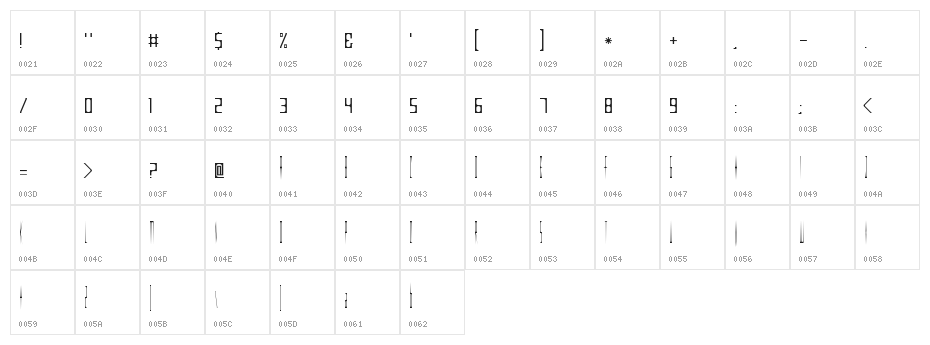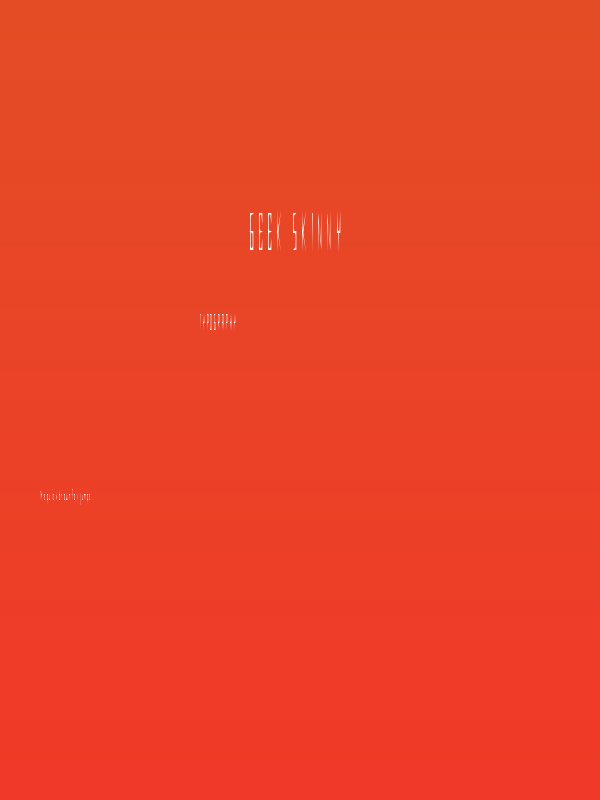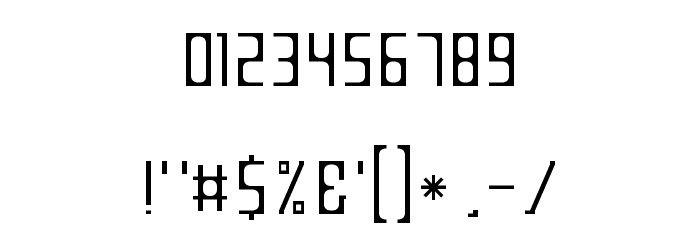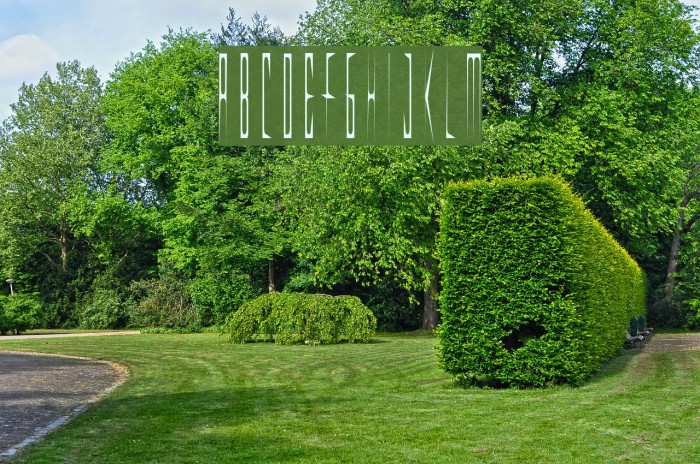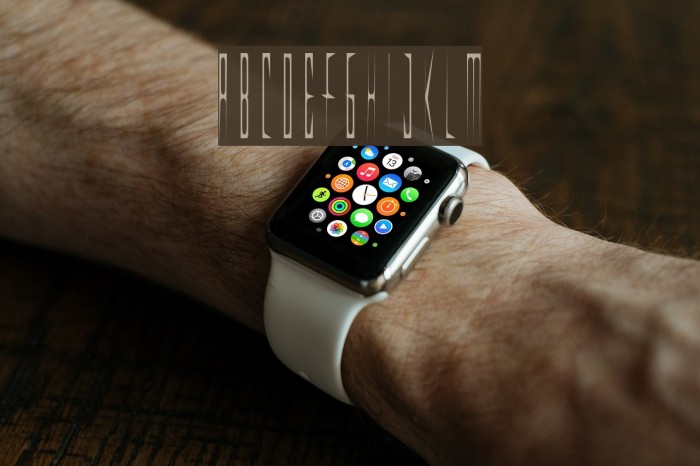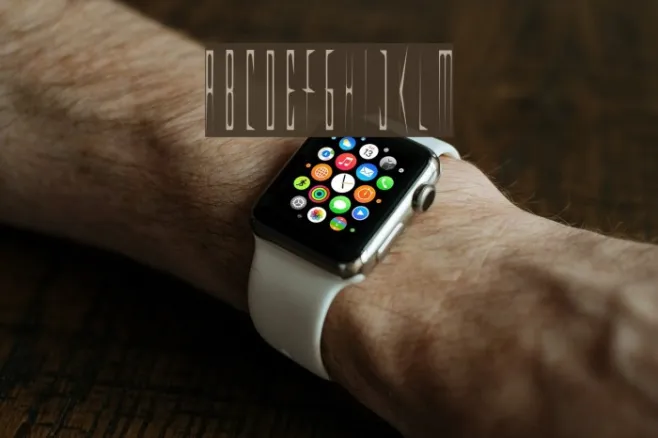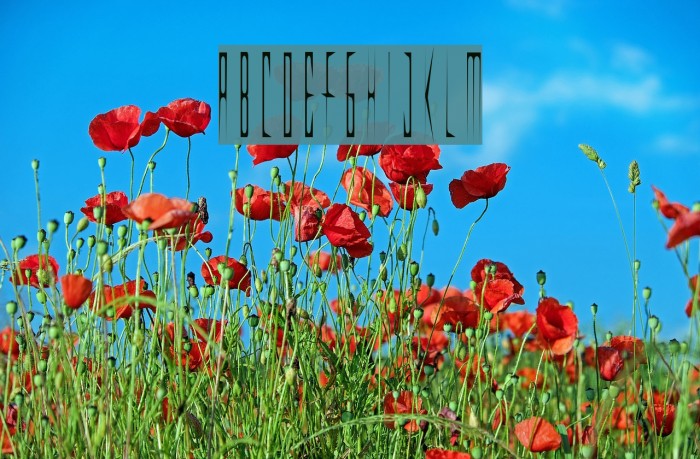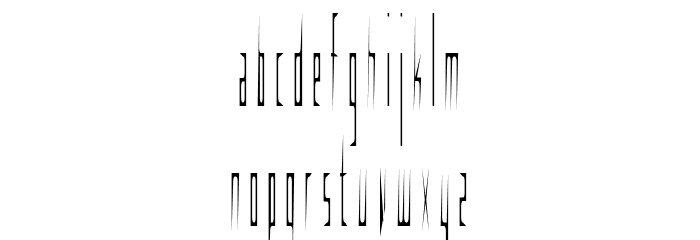
Geek Skinny Font
Geek Skinny Description
This font features a unique, elongated design with a modern and edgy aesthetic. The characters are tall and narrow, with sharp, tapering strokes that give a sense of movement and dynamism. The uppercase and lowercase letters maintain a consistent height, creating a uniform appearance. The numbers and special characters follow the same slender style, adding to the overall cohesiveness of the font. This design is particularly striking due to its high contrast in stroke thickness, with some lines being extremely thin while others are more pronounced. The font's distinctive style makes it ideal for projects that require a futuristic or avant-garde look.
| Proposed Projects | Ideal for futuristic designs, sci-fi themed projects, edgy branding, and modern posters. |